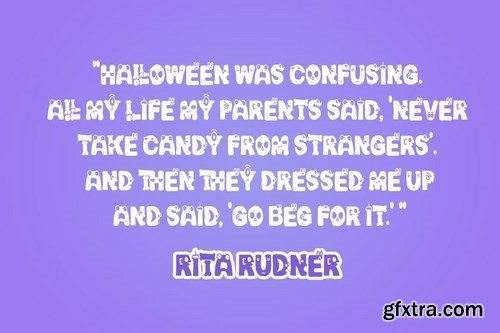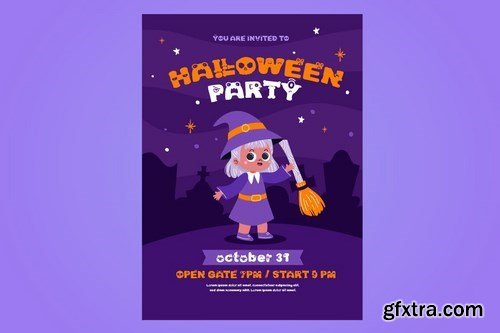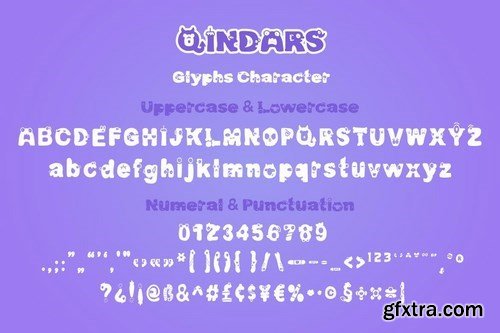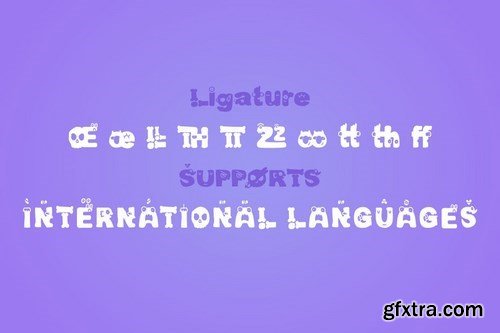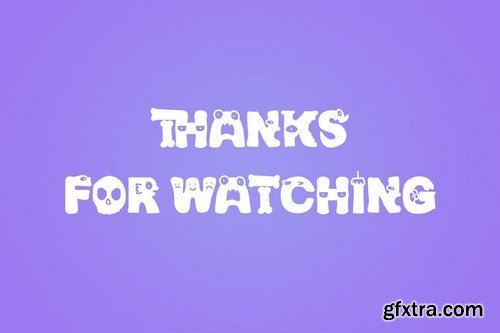
Qindars is a display font with a unique and fun theme, created by paying close attention to the uniqueness of each letter character, as well as the level of precision so that when used in words or sentences, it can produce a truly beautiful combination of letters, all of which we carefully designed for ourselves.
Show you what makes us unique, and notice how beautiful, harmonious, and smooth each graphic treat is.
This typeface is ideal for usage in a variety of unusual graphic projects, including games, book titles, outdoor activities, posters, banners, quotes, branding, and other unique projects. So, what are you waiting for? Get this font now!